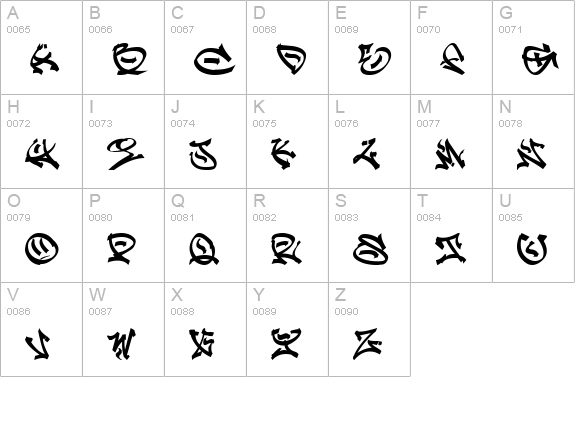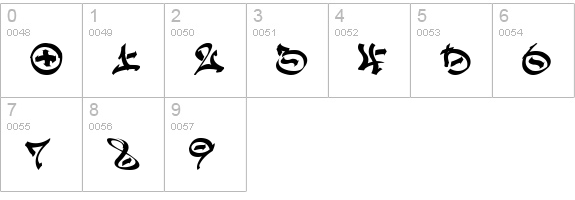
GRAFFPITY Font Details
Introducing GRAFFPITY font, a unique and edgy typeface that captures the essence of urban street art. This versatile font combines bold, graffiti-inspired letterforms with a modern twist, making it perfect for adding a touch of urban flair to your designs. With its striking and dynamic appearance, GRAFFPITY font is sure to make a statement in any project, whether it's for posters, logos, apparel, or social media graphics. Its playful yet bold style adds a sense of energy and creativity to your designs, making them stand out from the crowd. Best of all, GRAFFPITY font is available for free download at FontsMarket.com. This means you can easily access this stylish font and use it in your projects without any cost. So why wait? Give your designs a fresh and urban look with GRAFFPITY font today!